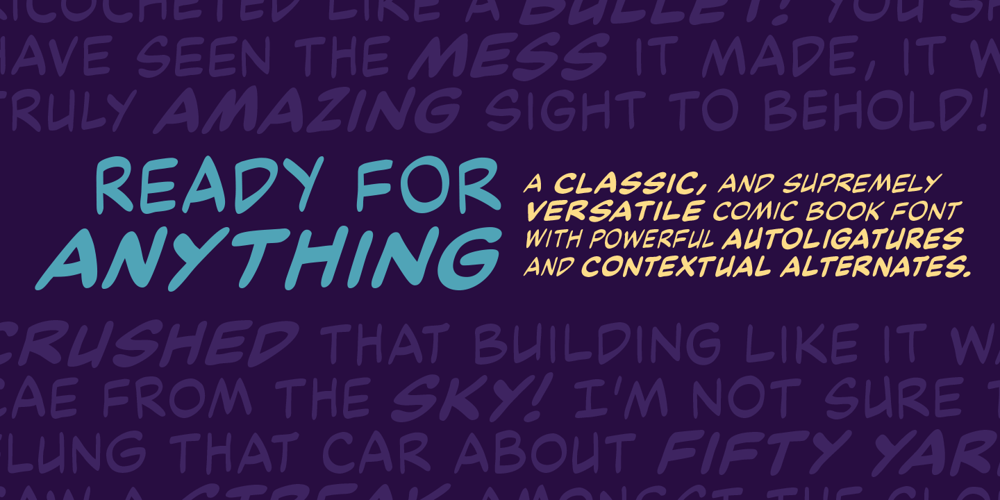
Ready For Anything BB
Ready For Anything BB font
Ready For Anything BB Font Family was designed by Nate Piekos and published by Blambot. Ready For Anything BB contains 4 styles and family package options. Ready for Anything BB is a classic comic book lettering font designed with a Speedball C-6 pen nib, giving it supremely versatile letter-forms to complement any comic book art. As if that weren’t enough, it also features contextual alternates that swap through six versions of every letter, three versions of every number, exclamation point, and questions marks. It also automatically corrects errant serif-I, and creates a bouncy baseline for any more than three consecutive letter!